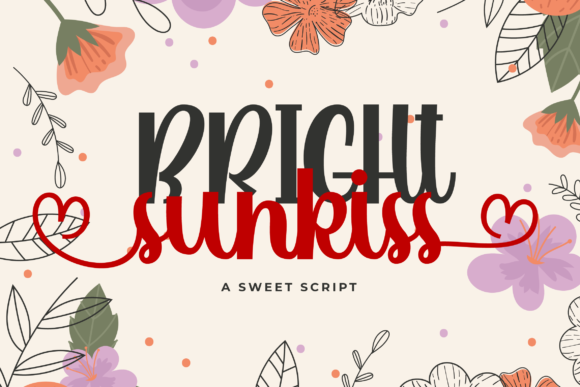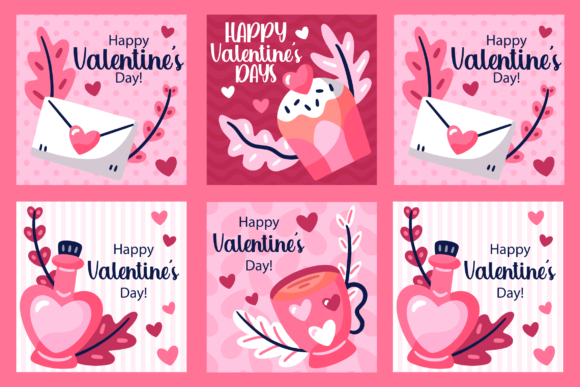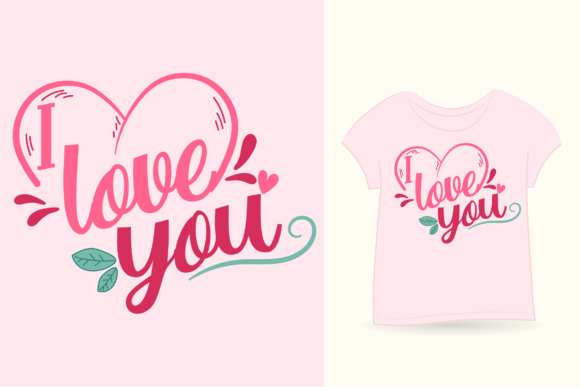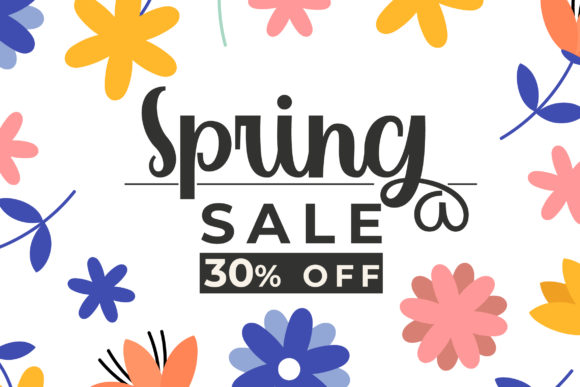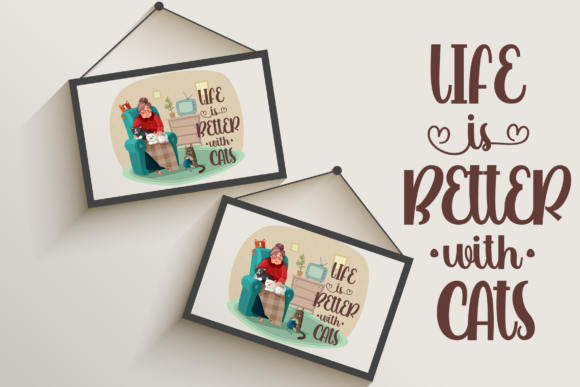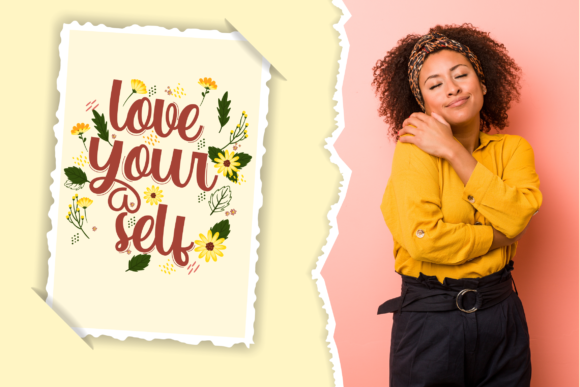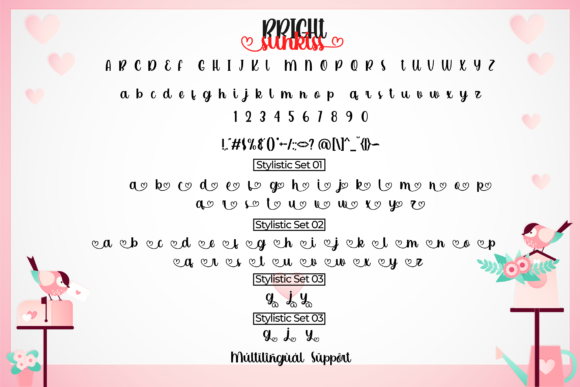
HomeScript FontsBright Sunkiss Font Script Fonts Bright Sunkiss Font FacebookXPinterestWhatsApp Bright Sunkiss Font Poster 2 Bright Sunkiss Font Poster 3 Bright Sunkiss Font Poster 4 Bright Sunkiss Font Poster 5 Bright Sunkiss Font Poster 6 Bright Sunkiss Font Poster 7 About Bright Sunkiss Font Bright Sunkiss is a cute & quirky handwritten font! The letters are blocky, bold and easy to read. DOWNLOAD ON CREATIVE FABRICAThis font is sold and delivered by Creative Fabrica. Font Canyon may earn a commission if you buy through this link. People also explored Rossellia Font Olivetti Valentine Balyta Font Mentawally Font Custom Kids Font Milk Font Victoria Font Dear Santa Font Amusing Font 314 0 TagsBright Sunkiss Font Previous articleYullietta FontNext articleLast Kids Font LEAVE A REPLY Cancel reply Comment: Please enter your comment! Name:* Please enter your name here Email:* You have entered an incorrect email address! Please enter your email address here Website: Save my name, email, and website in this browser for the next time I comment. Personal Use Free Castina Personal Use Free Read more about this font Good Mood Personal Use Free Read more about this font Trunk Shaped Personal Use Free Read more about this font Spring Personal Use Free Read more about this font BLOG Modern Sans-Serif Fonts That Brands Love in 2025 In 2025, modern sans-serif fonts remain a top choice for brands looking to project clarity, professionalism, and... Transform Your Website: Elevate Your Typography with 7 Best Web Font Generators Where to Buy American Fonts Online in 2024 Free Fonts Risk: Why Free Fonts Can Be Dangerous for Designers